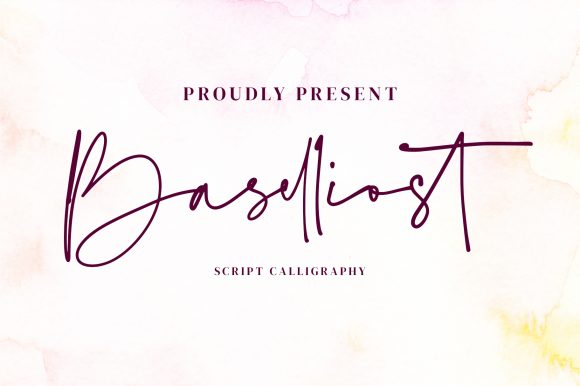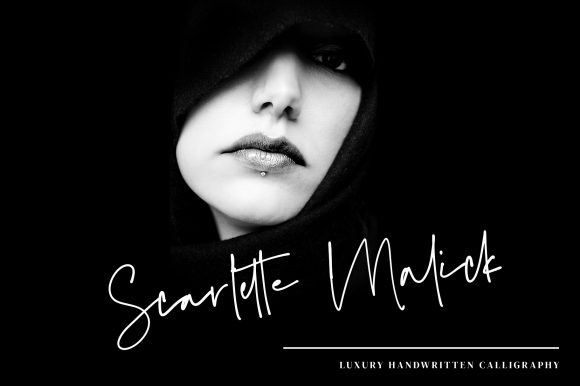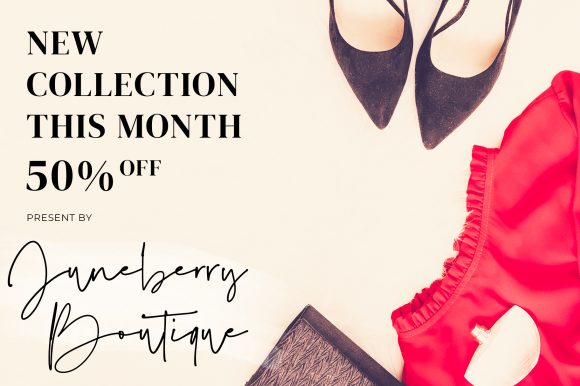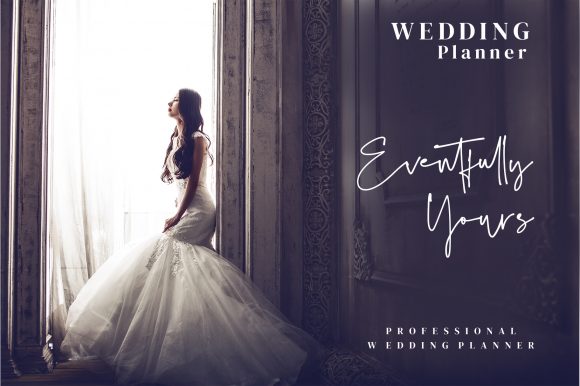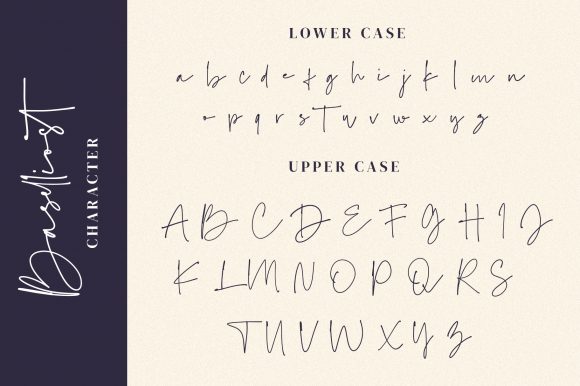
About Baselliost Handwritten Script Font
Baselliost is a fashionable and unique handwritten font. It has a classy, elegant and modern look that can be used for logos, branding, invitations, stationery, wedding designs, social media posts, and much more!